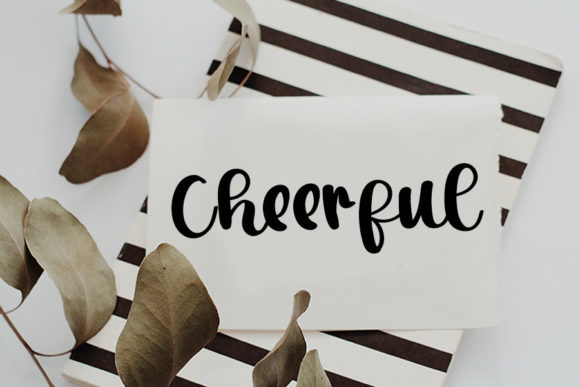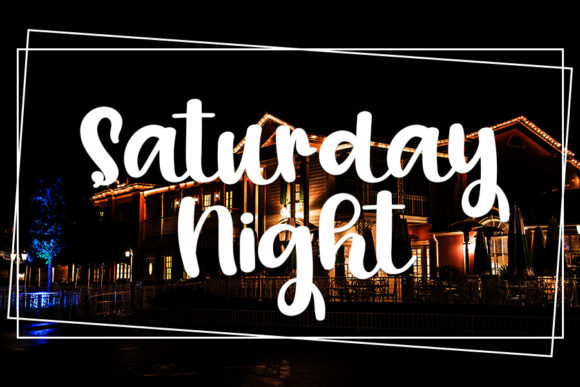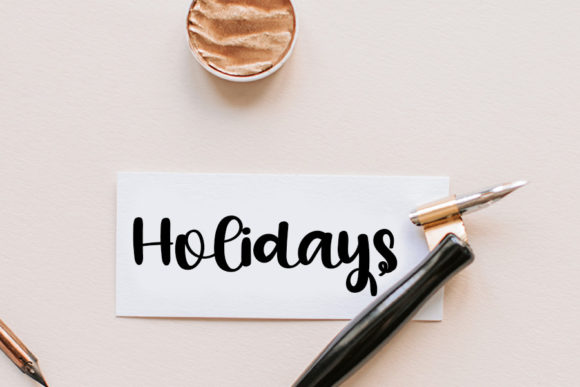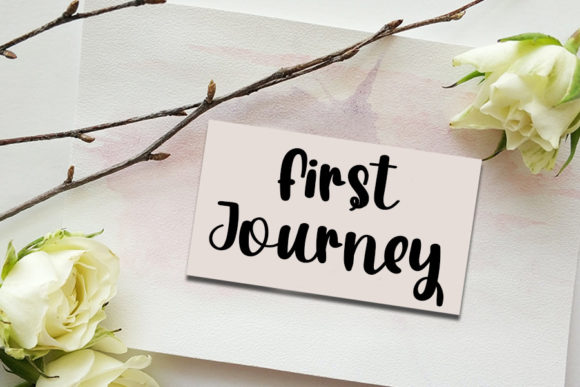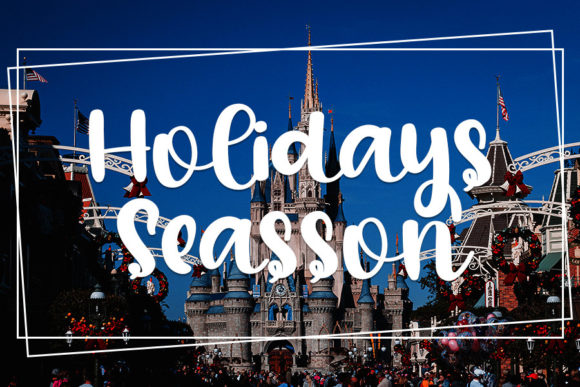
Introducing Happyland Font: Elevate Your Designs with Elegance and Class
Are you tired of using the same old fonts in your designs? Do you want to add a touch of elegance and sophistication to your projects? Look no further than Happyland Font, a lovely and delicate script font that exudes refinement and poise. In this article, we’ll explore the features and benefits of Happyland Font, and why it’s the perfect choice for designers and crafters looking to elevate their designs.
The Story Behind Happyland Font
Happyland Font was particularly crafted for those who need a beautiful and refreshing look to their designs. The font’s creators aimed to create a typeface that would bring a sense of joy and happiness to any project, while maintaining a level of sophistication and elegance. And that’s exactly what they achieved with Happyland Font.
Key Features of Happyland Font
So, what makes Happyland Font so special? Here are some of its key features:
• Delicate and Elegant: Happyland Font features delicate and elegant strokes that give it a refined and sophisticated look.
• Script Style: This font is a beautiful script font that adds a touch of elegance and class to any design.
• Highly Versatile: Happyland Font can be used for a wide range of design projects, from wedding invitations and stationery to branding and advertising.
• Easy to Read: Despite its delicate nature, Happyland Font is highly legible and easy to read, making it perfect for body text and headlines.
Benefits of Using Happyland Font
So, why should you choose Happyland Font for your designs? Here are some benefits of using this lovely font:
• Adds Elegance and Sophistication: Happyland Font adds a touch of elegance and sophistication to any design, making it perfect for high-end brands and luxury products.
• Stand Out from the Crowd: With Happyland Font, you can create designs that stand out from the crowd and grab attention.
• Perfect for Creative Projects: This font is perfect for creative projects, such as branding, advertising, and marketing materials.
• Easy to Pair: Happyland Font can be easily paired with other fonts to create a unique and harmonious typography.
Design Ideas Using Happyland Font
Now that we’ve explored the features and benefits of Happyland Font, let’s talk about some design ideas to get you started:
• Wedding Invitations: Use Happyland Font to create beautiful and elegant wedding invitations that set the tone for the big day.
• Branding and Packaging: Add a touch of elegance and sophistication to your branding and packaging with Happyland Font.
• Stationery and Letterhead: Create beautiful and professional-looking stationery and letterhead with Happyland Font.
• Advertising and Marketing: Use Happyland Font to create eye-catching and effective advertising and marketing materials.
In conclusion, Happyland Font is a lovely and delicate script font that exudes elegance and class. With its delicate strokes, elegant style, and high versatility, it’s the perfect choice for designers and crafters looking to elevate their designs. Whether you’re working on a wedding invitation, branding project, or advertising campaign, Happyland Font is sure to add a touch of sophistication and refinement. So why not give it a try and see the difference it can make in your designs?